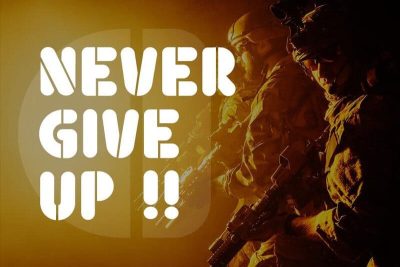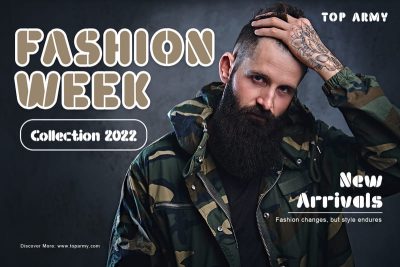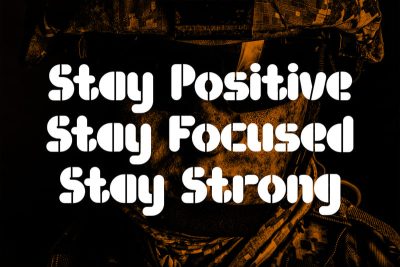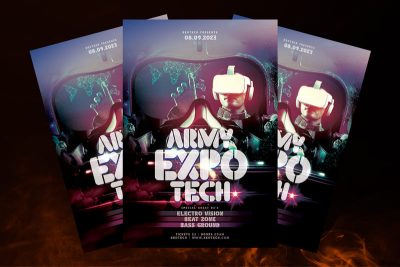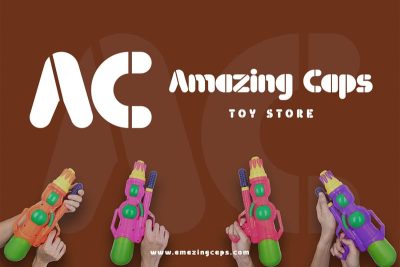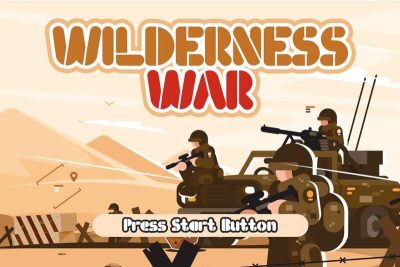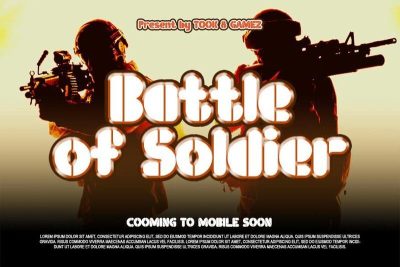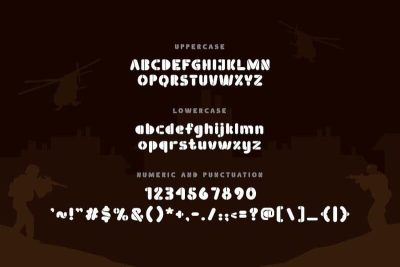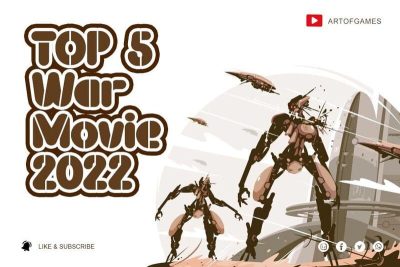
Bubble Font Time Bomb: A Bold Typeface for Impactful Designs
Bubble Font Time Bomb is a bold, army-inspired font with rounded letters and sharp edges. Its modern look combines thick strokes and bubble-like contours, making it highly readable in both digital and print formats. Moreover, this fontโs powerful appearance adds depth to designs with tech, military, or high-energy themes. Because of its thick, rounded lines, itโs perfect for grabbing attention and bringing a sense of action and strength to any project.
Furthermore, Time Bombโs unique style is versatile, making it suitable for a wide range of applications. For instance, itโs ideal for eye-catching headlines, posters, and branded merchandise. Whether used on billboards or packaging, Time Bomb guarantees a strong visual impact that resonates with audiences.
Ideal for Designers and Use Cases
Bubble Font Time Bomb is an excellent choice for graphic designers, event promoters, and content creators who seek powerful visuals. Its bold design works especially well for industries like gaming, technology, and military branding. For example, video game designers can enhance combat or futuristic scenes by using Time Bomb, while action movie posters and extreme sports branding benefit from its energetic look.
In addition, event organizers can make use of Time Bomb for posters, banners, and social media graphics. Its bold style makes it perfect for high-energy events, such as martial arts tournaments, tech expos, and sports competitions. Because of its design, important details stand out clearly on screens and displays.
Finally, this font is well-suited for brands that aim for a strong identity. Companies in tech, security, or gaming can leverage Time Bomb for logos, branding, and packaging, benefiting from its blend of boldness and innovation. Overall, Time Bomb is an asset for any brand that seeks to capture attention and instill confidence through memorable design.